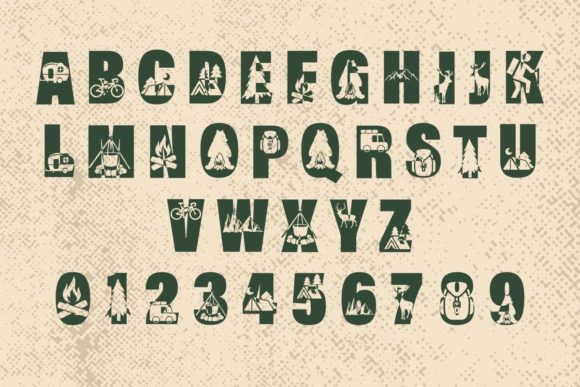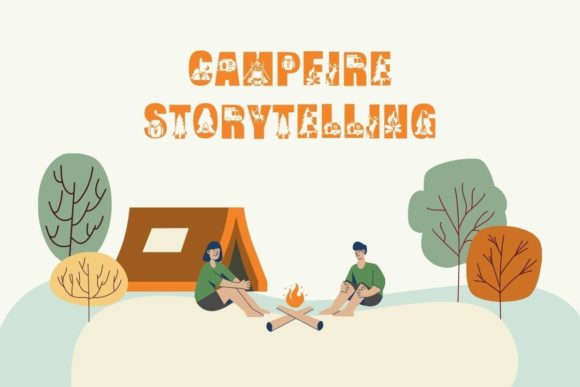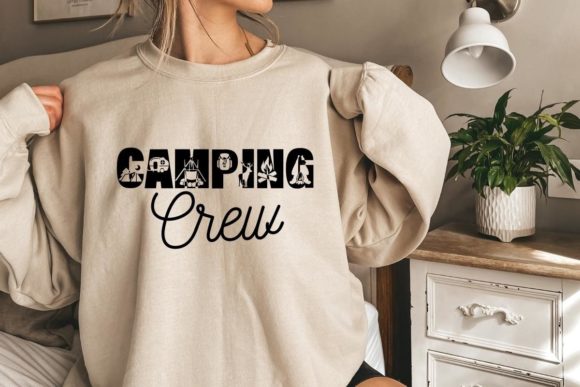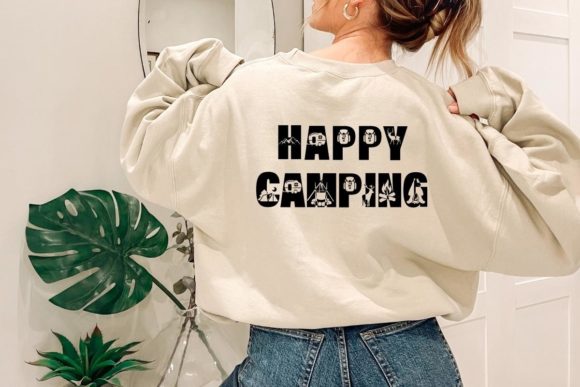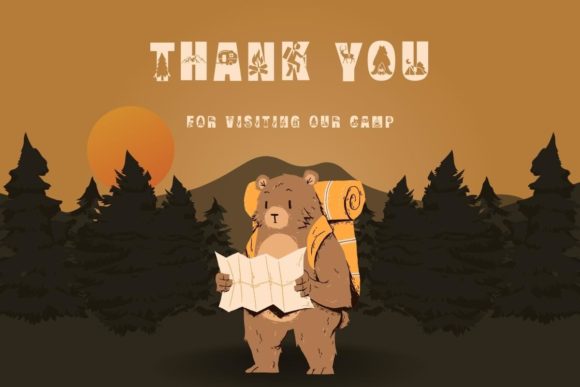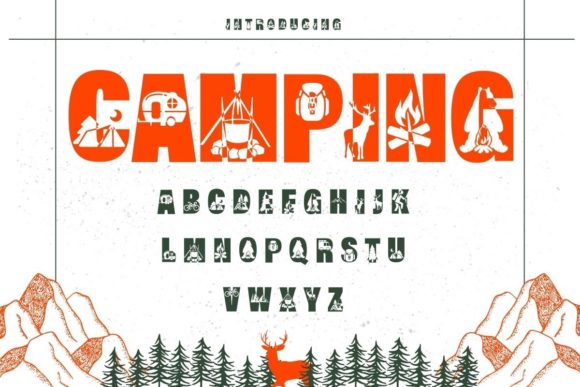
The Joy of Camping Font: A Designer’s New Best Friend
I still remember the design project that led me to discover the Camping Font. I was working on a party invitation for a friend’s kid’s birthday bash, and I was struggling to find the perfect font that would convey the playful and youthful vibe of the event. That’s when I stumbled upon Camping Font, and it instantly became my go-to choice. In this article, I’ll share my experience with Camping Font, its features, and how to make the most of it in your designs.
An Honest Review of Camping Font
What I Love About Camping Font
- ✨ **Cute and Playful**: Camping Font is incredibly cute and playful, making it perfect for designs that require a touch of youth and joy.
- ✅ **Easy to Read**: Despite its decorative nature, Camping Font is surprisingly easy to read, even in smaller sizes.
- 💃 **Versatile**: Camping Font can be used for a wide range of design projects, from party invitations to social media graphics.
- 🎉 **Fun and Festive**: The font’s playful personality adds a fun and festive touch to any design.
While Camping Font is an amazing decorative font, it’s not without its quirks. Here are a few things to keep in mind:
- 🤔 **Limited Use in Formal Designs**: Due to its playful nature, Camping Font may not be the best choice for formal designs, such as business cards or resumes.
- ⚠️ **Kerning Issues**: Like many decorative fonts, Camping Font may require some manual kerning adjustments to ensure optimal spacing.
The Story Behind Camping Font
Camping Font was designed with one goal in mind: to bring a touch of youthful joy to designs. While I couldn’t find any information on the font’s creator, it’s clear that they succeeded in crafting a font that’s both fun and functional.
| Font Name | Camping Font |
| Author | TRUTHkeep |